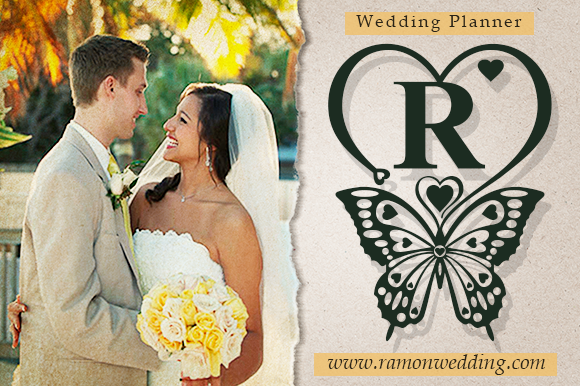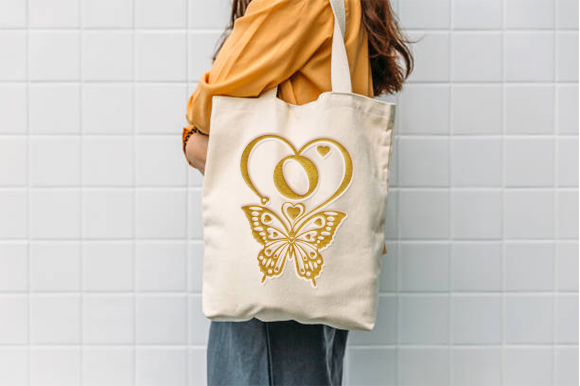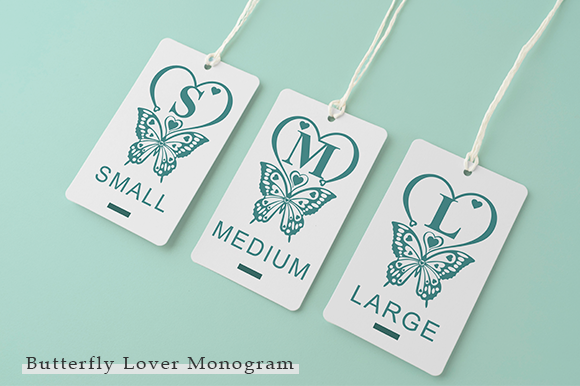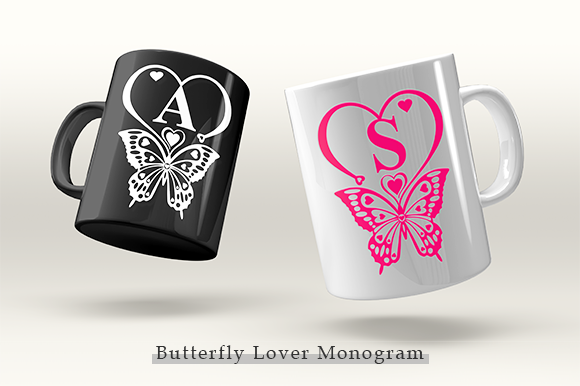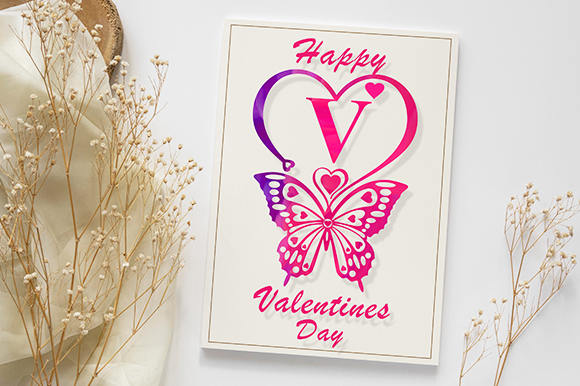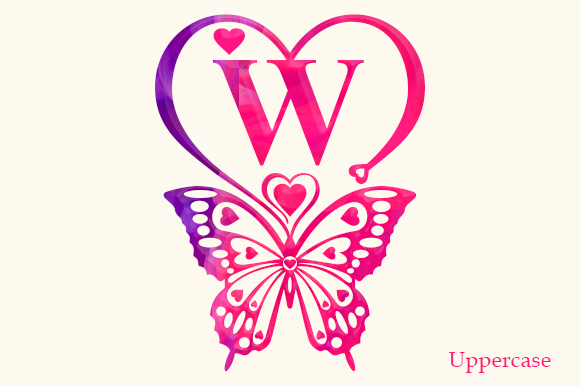
Unleash Your Creativity with the Butterfly Lover Monogram Font
Have you ever found yourself lost in a sea of design inspiration, yearning for that perfect font to elevate your project? It’s a feeling many of us designers know all too well. One moment, you’re browsing through font libraries; the next, you stumble upon a hidden gem that makes your heart skip a beat. For me, that moment came when I discovered the Butterfly Lover Monogram Font.
This elegant decorative font is a masterpiece of design, featuring beautiful ornaments that add an authentic touch to any project. Whether you’re crafting wedding invitations, creating social media posts, or designing greeting cards, the Butterfly Lover Monogram Font is the perfect choice to make your creations stand out. As a designer, you’ll appreciate the versatility and sophistication it brings to your work, making it an invaluable addition to your toolkit.
- Unique Characteristics: The Butterfly Lover Monogram Font features intricate, hand-drawn designs and elegant flourishes, making it perfect for romantic and whimsical projects.
- Monogram Compatibility: The font is designed specifically for creating monograms, allowing users to easily combine letters and symbols to create unique and personalized designs.
- Script and Initials: The font includes a range of script and initial styles, enabling users to create custom monograms with various letterforms and flourishes.
Designer Review: Butterfly Lover Monogram Font
Overall, I was excited to dive into the Butterfly Lover Monogram Font, but my experience was a mix of highs and lows. ✨ Here are some things that I think work well:
- Unique design concept: The font is inspired by traditional Chinese culture and features intricate, hand-drawn details.
- Expressive potential: The monogram design lends itself well to creative and artistic applications.
However, I also encountered some limitations that might be deal-breakers for some users. ⚠️ Here are a few things to consider:
- Limited character set: The font is primarily designed for monogram use and may not include a comprehensive set of characters.
- Distortion at large sizes: The intricate details of the font can become distorted when scaled up, which may affect readability.
Overall, I would say that the Butterfly Lover Monogram Font is a unique and expressive design that’s perfect for specific applications, but may not be suitable for everyday use. With some careful consideration and planning, it can be a beautiful addition to your design arsenal.
The Butterfly Lover Monogram Font is perfect for:
- Wedding invitations and decorations
- Baby shower invitations and decorations
- Personalized stationery and gifts
For the best results, use the font in a clean and simple design to showcase its unique characteristics.